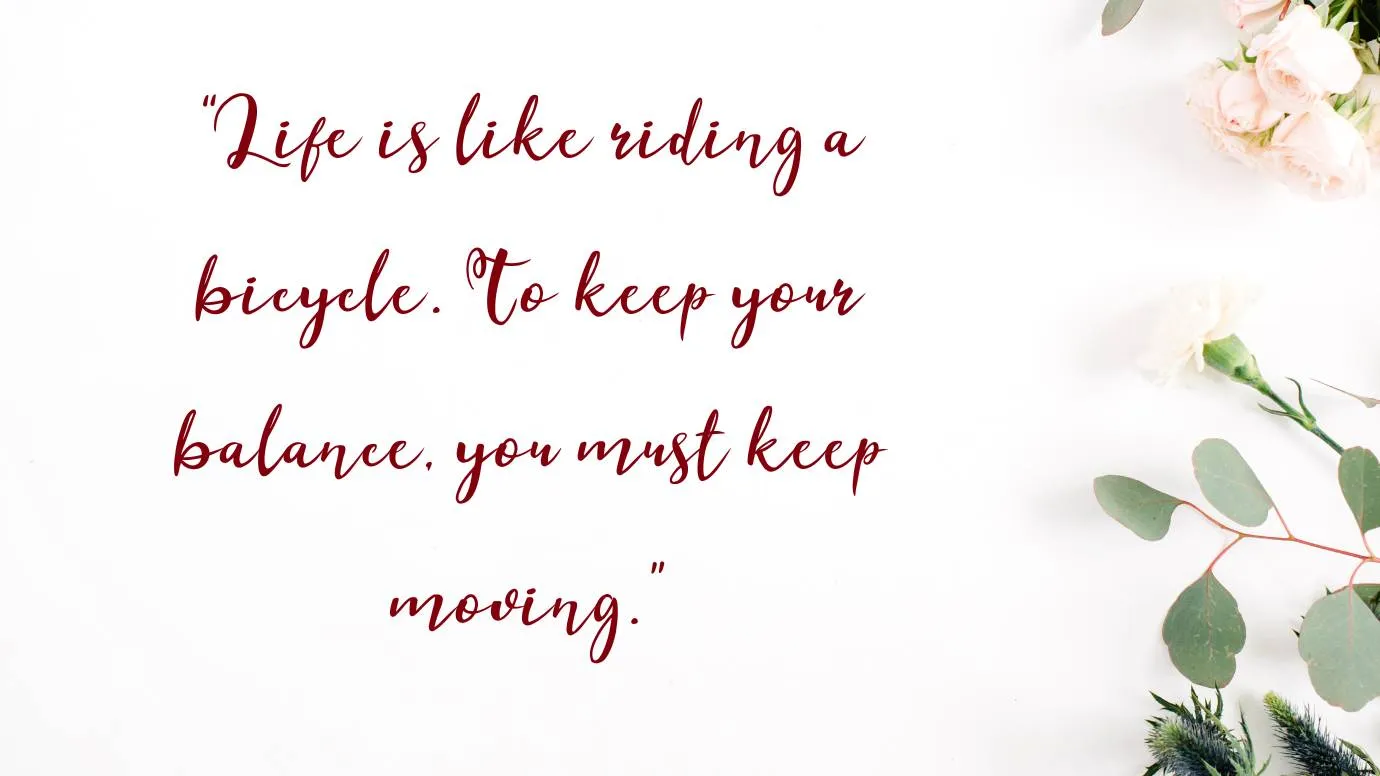
Esteh Font is a unique script typeface that comes in eye-catching swashes. The glyphs and alternates of this font are suitable for different fantastic text and other design purposes. This bold and amazing look font was designed for the first by Teuku Muslyawan. This texture was published by Khurasan which is a famous typographic studio.
Additional Features of Esteh Font
This staggering texture has a lot of additional features that make it different from other typefaces. Due to its unique features, the paid version of this font is available for different text design purposes. It comes with bold strokes that’s why most designers use this font for different types of professional designs.
The characters of this are advanced and rounded swashes. All Glyphs of this typeface increase the worth of this font family. This typography includes o3 classic and staggering styles. This typography supports a lot of international-level languages. You can select any format from available ones like OTF and TTF.
Esteh Font Family (Includes 03 Styles)
- Esteh Bold
- Esteh Italic
- Esteh Light
Esteh Font in Edditirial Designs
The most graphic, as well as web designers, pick this modern font for famous academic logo designs, magazines cover designs, and many other related purposes. This font family is also good for the digital book cover designs and comic cover designs. For text titling and video editing purposes, this font is the best choice for every designer.
It is great for use in the making process of fantastic wall murals designs, home decor designs, and various types of housewares designs purposes. It is also appropriate for emblems designs, documentation, stationery, and note purposes. This font is mostly used for companies’ name design purposes.
By pairing with buttercup font, you can achieve huge success in your designs. It is also good for use in the process of various famous theme designs, web page designs, template designs, and different web projects. This font family is also good for making magazine covers and newspaper designs
What is the type of Esteh Font?
Esteh is a script typeface that has small bold lines at the ends of the strokes. Khurasan is the designer of this font.
Where we can use Esteh Font?
This typeface is perfect for any project that requires a touch of class. This font family is perfect for everything from wedding invitations to business cards.